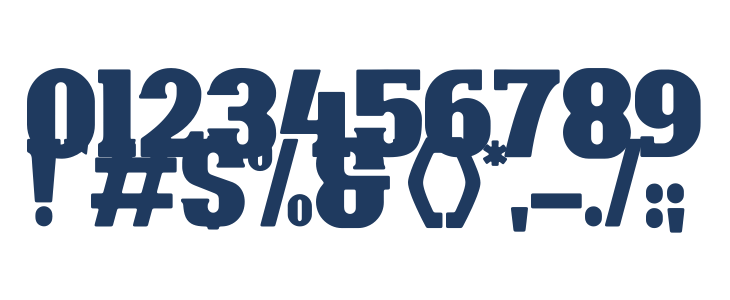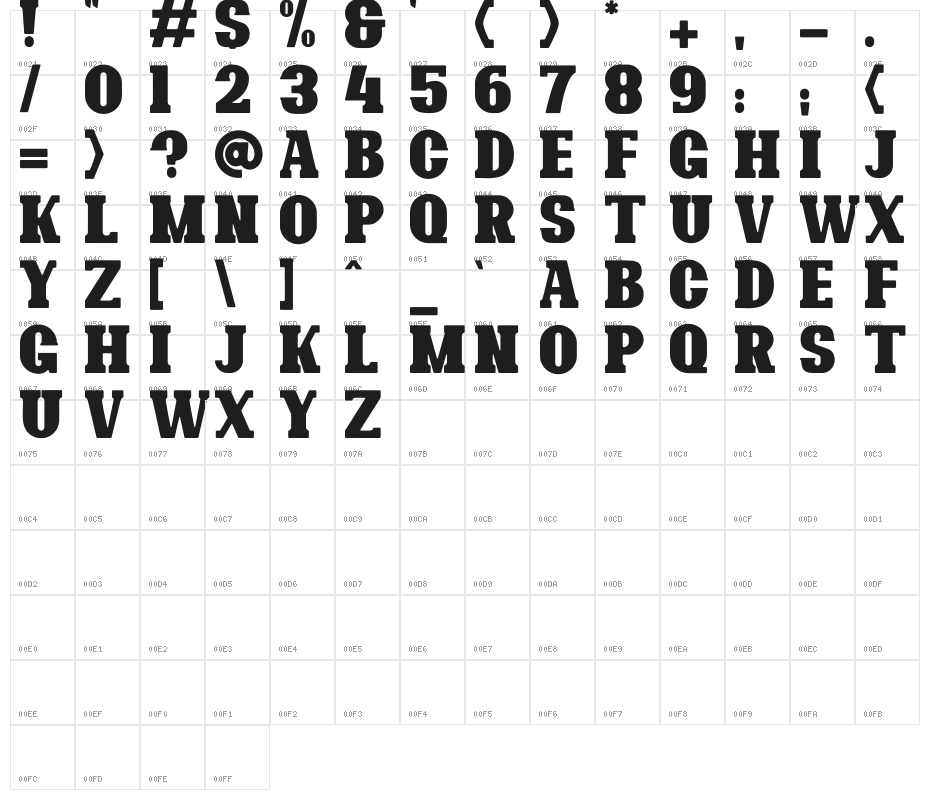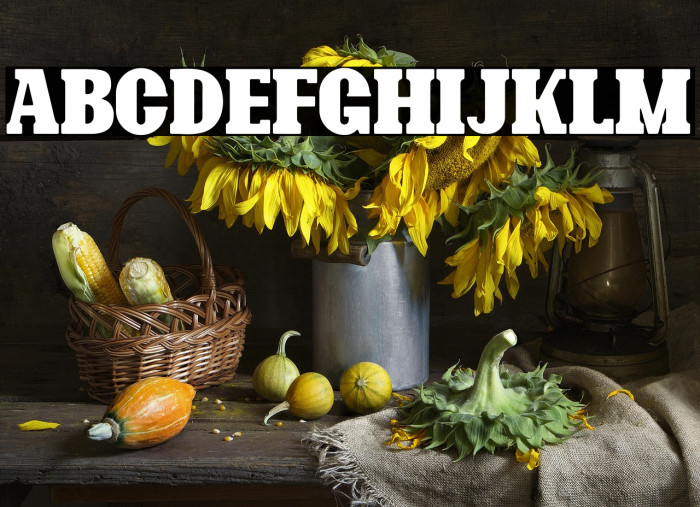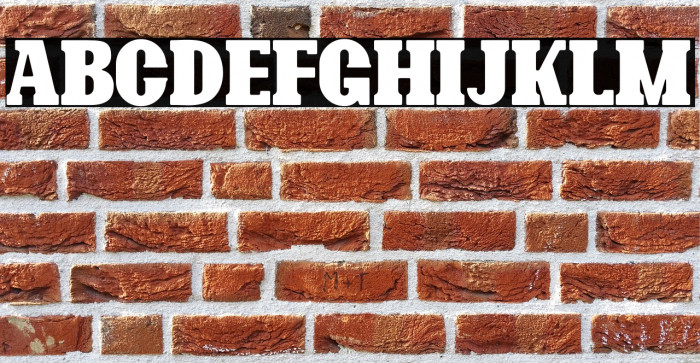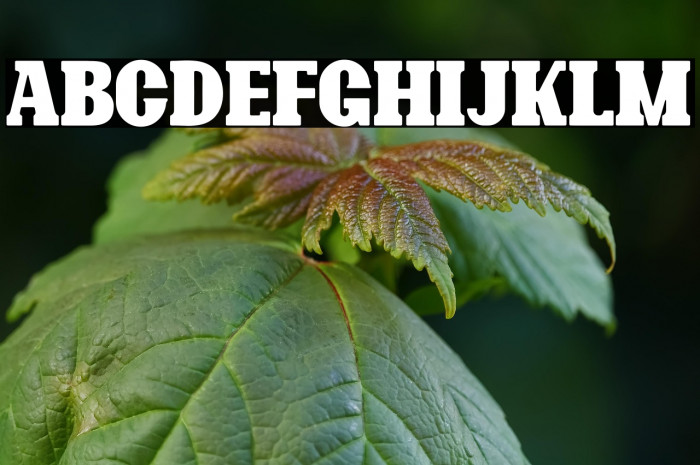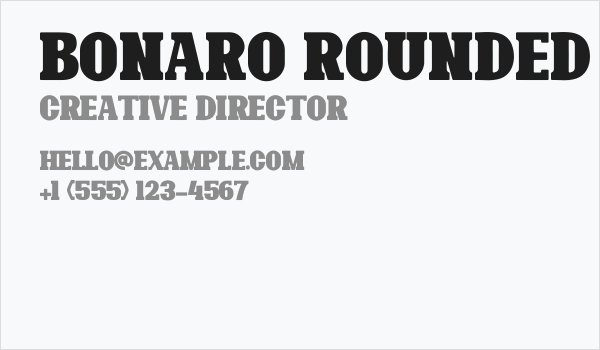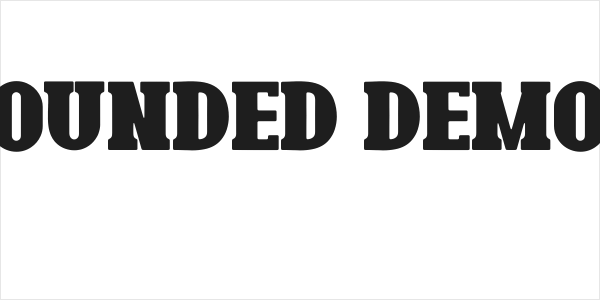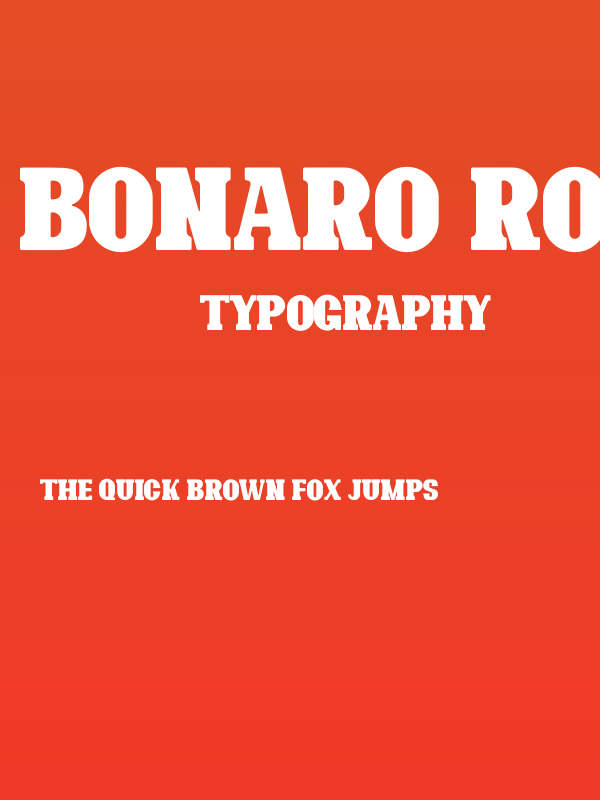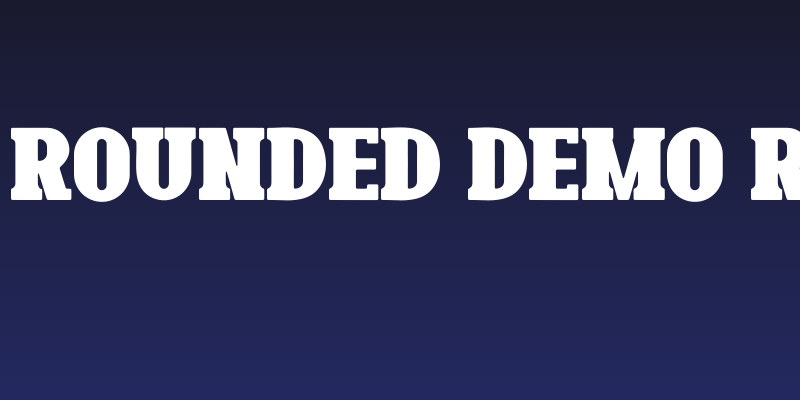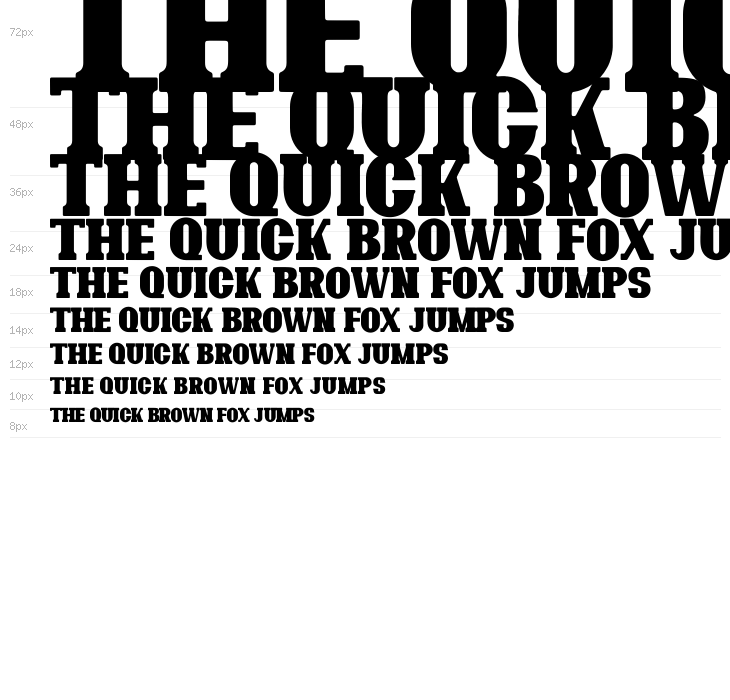
Bonaro Rounded Demo Rounded Font
Bonaro Rounded Demo Rounded Description
This font features a bold and robust design with rounded edges, giving it a friendly yet assertive appearance. The characters are uniformly thick, providing a strong visual impact. The uppercase letters are particularly striking, with a consistent height and width that make them ideal for attention-grabbing headlines. The numerals and special characters maintain the same boldness, ensuring readability and consistency across different uses. The rounded terminals soften the overall look, making it suitable for both modern and retro-themed projects.
| Proposed Projects | Ideal for branding, posters, headlines, and any design requiring a bold statement. |